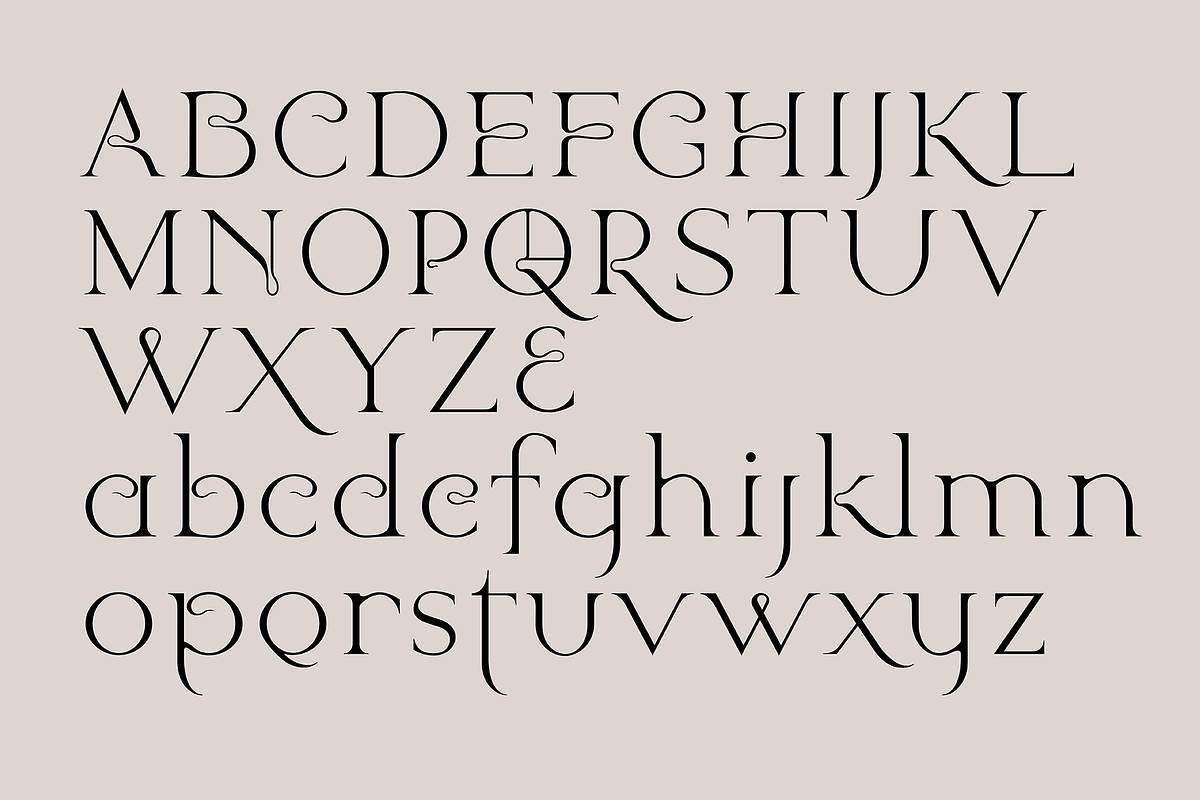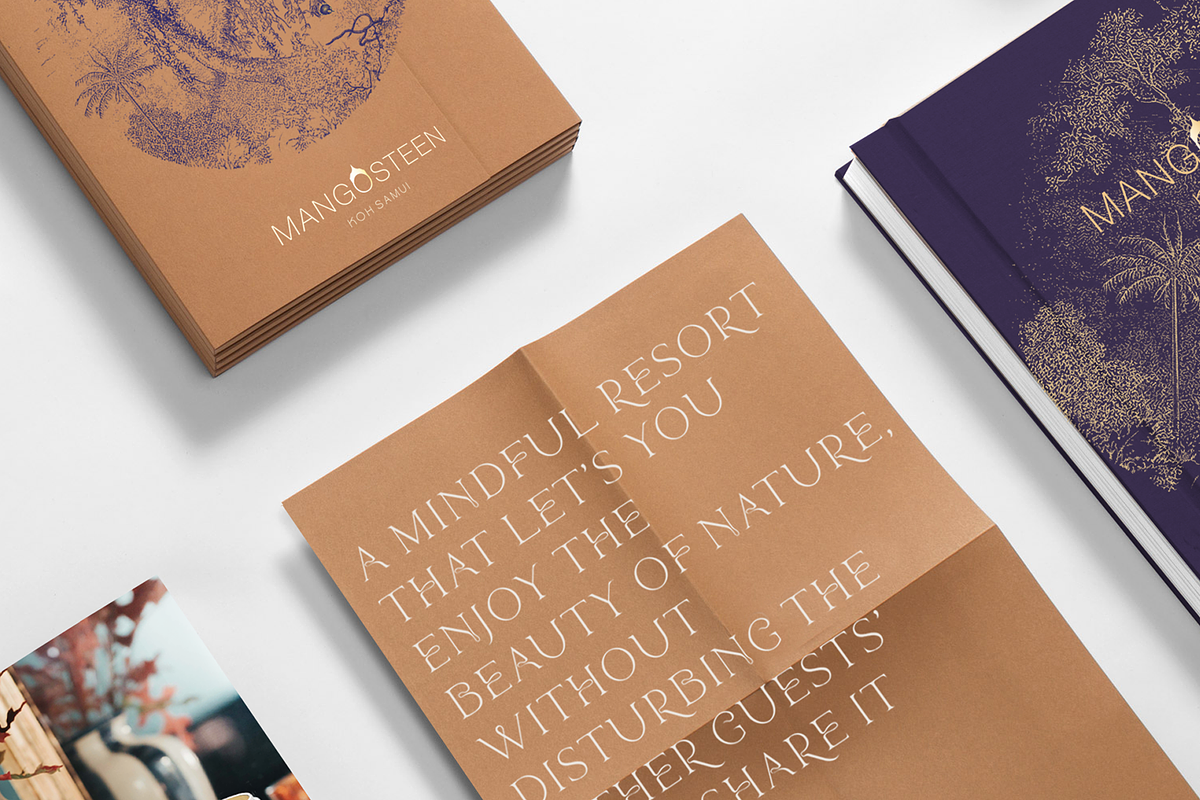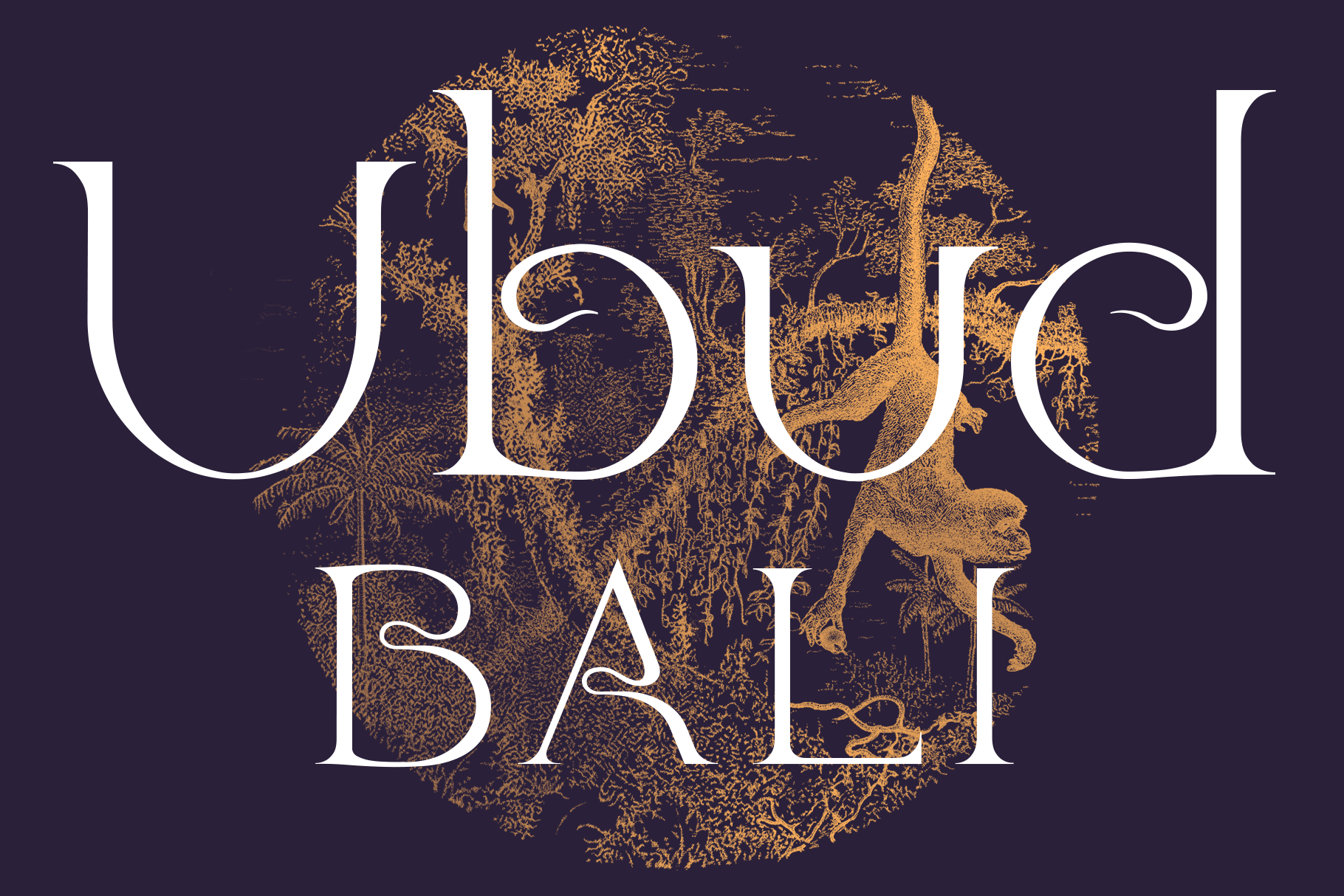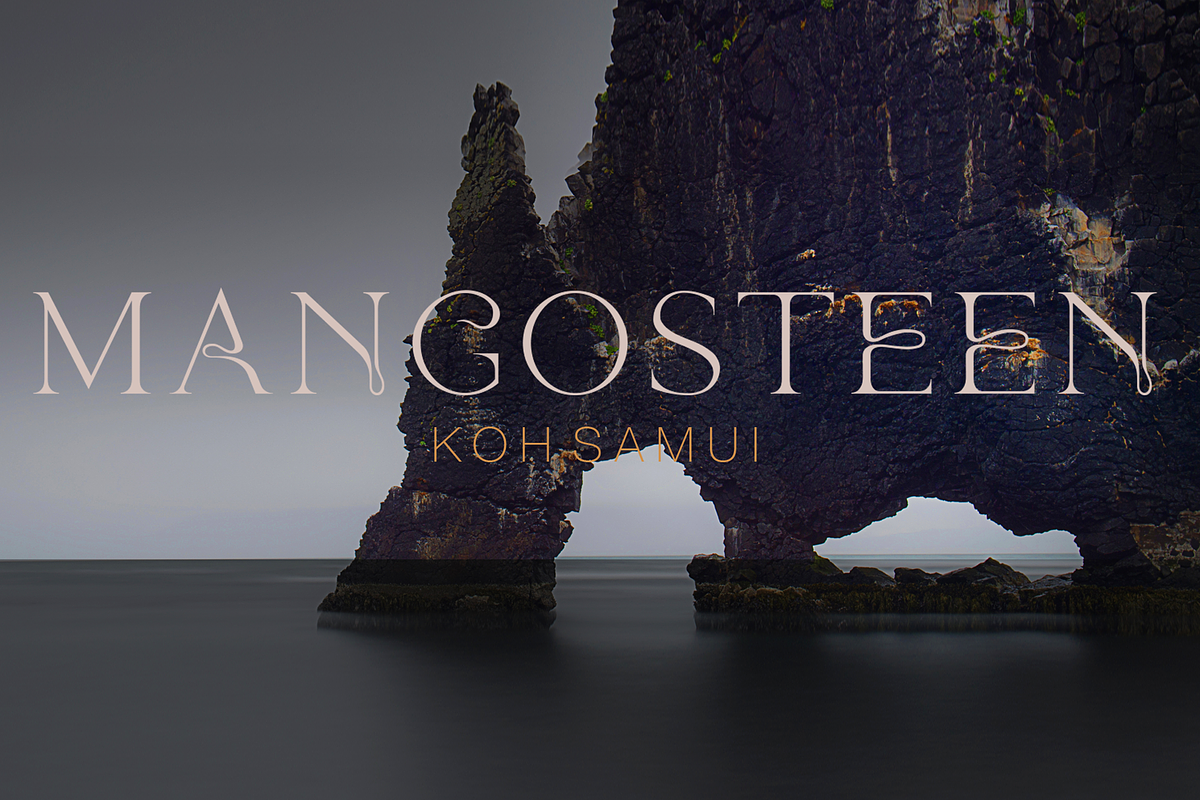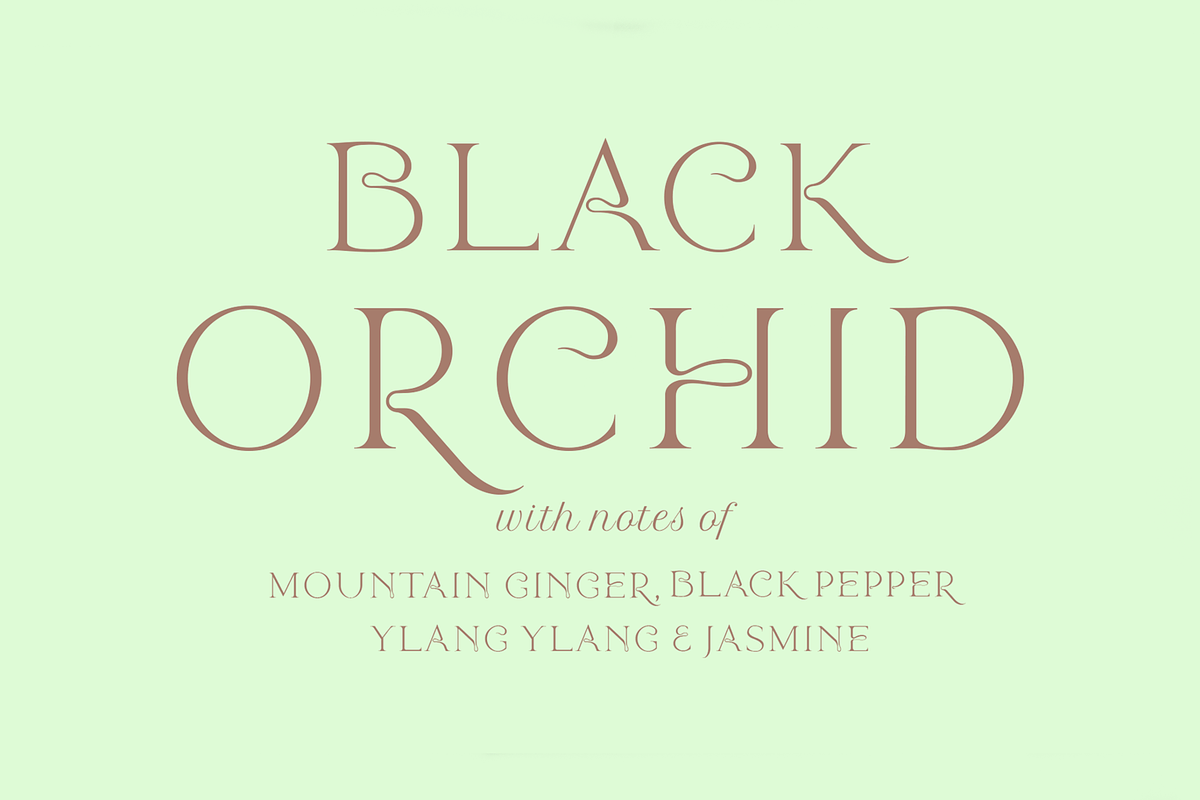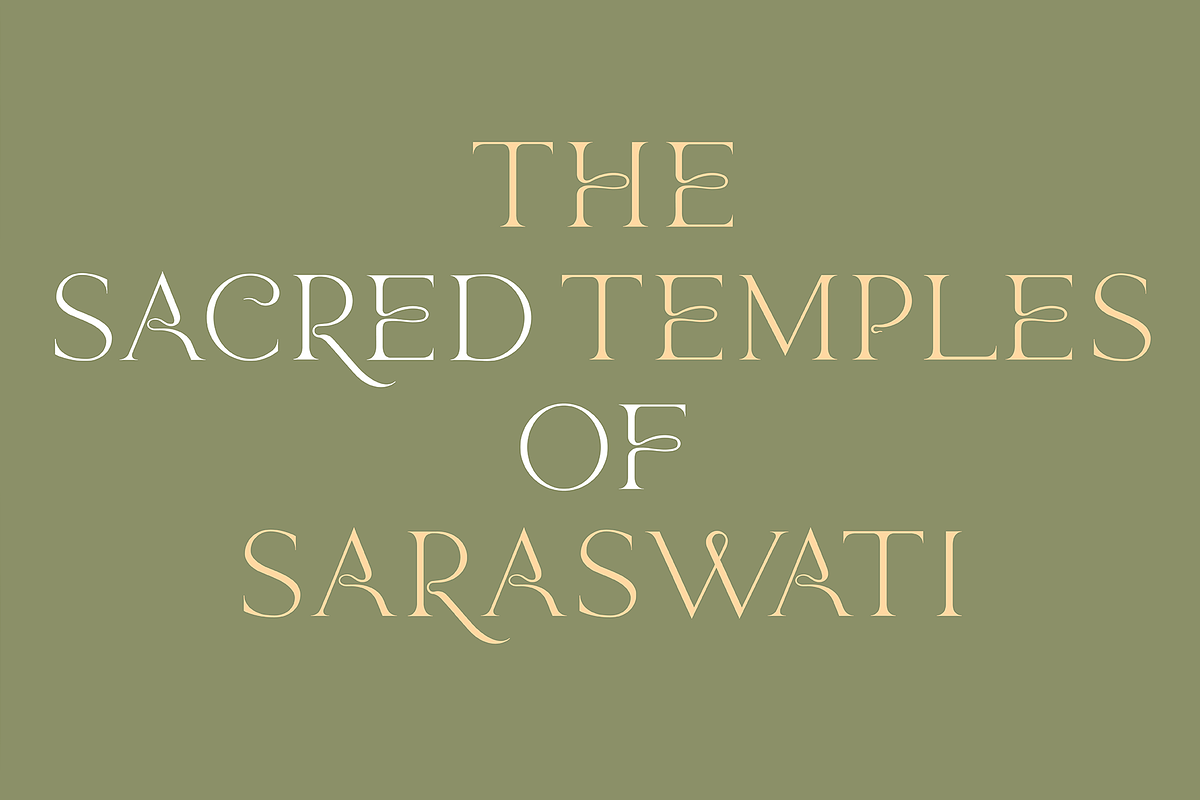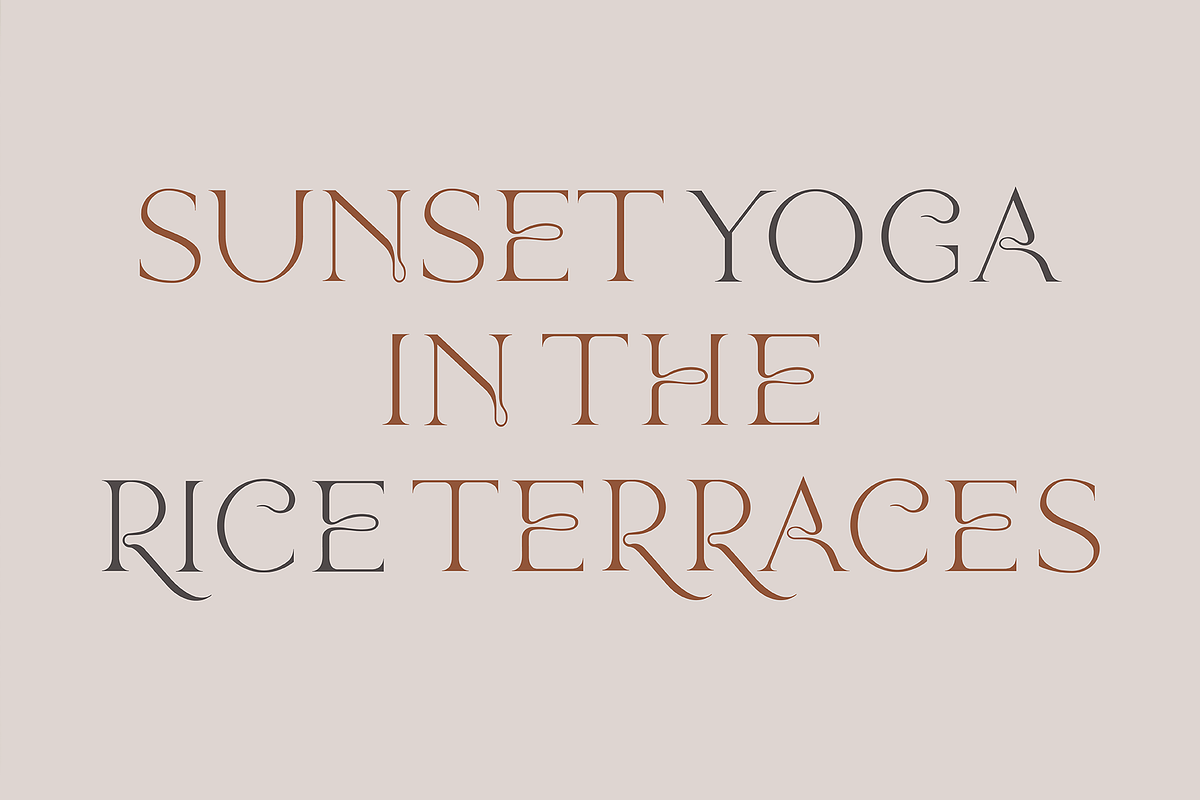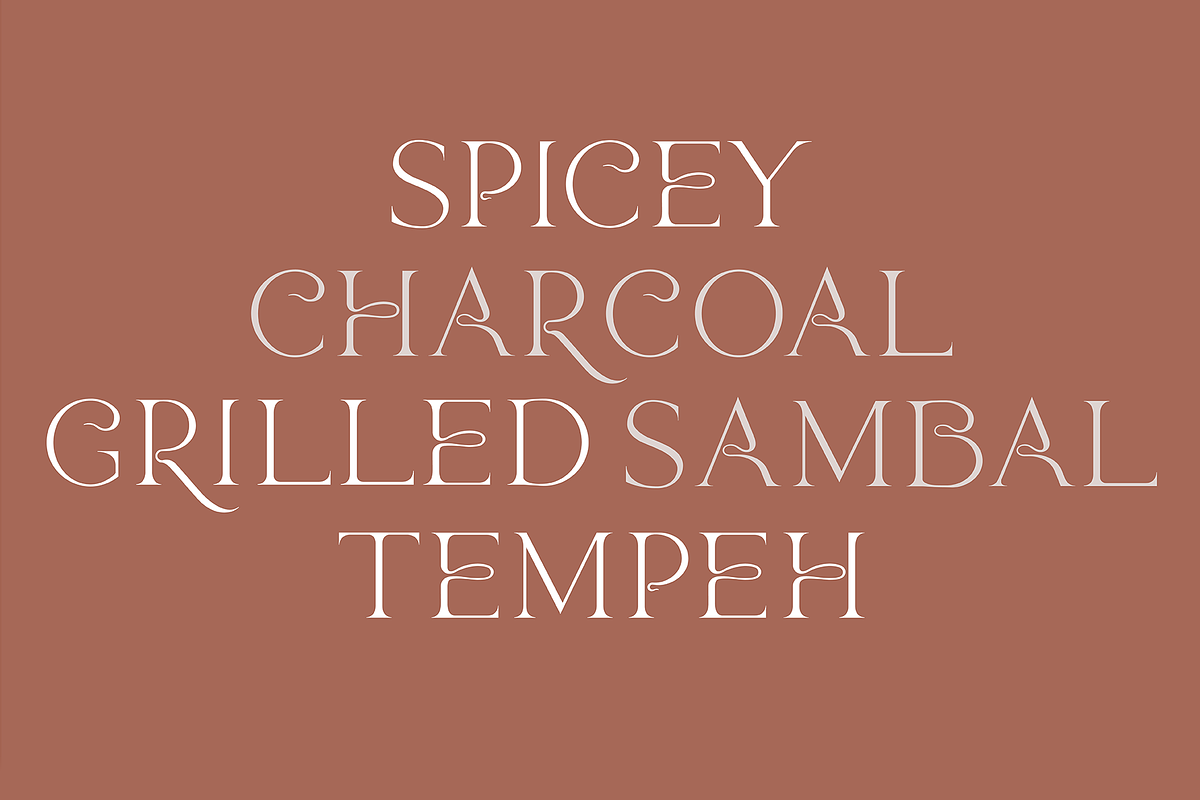
Ubud. Contemporary serif font
Ubud is a beautifully expressive new font from LostandFoundry. This 'contemporary' serif font was inspired by the rich Balinese culture and references the intricate stone carvings of their temples.